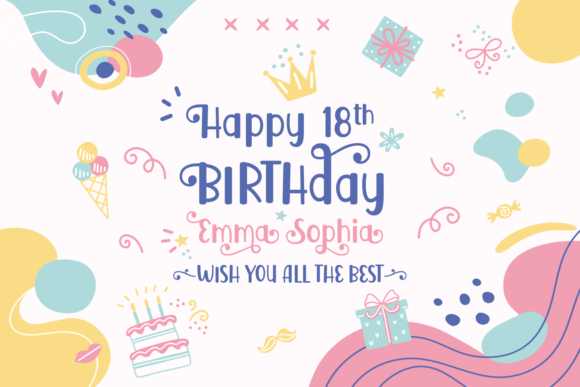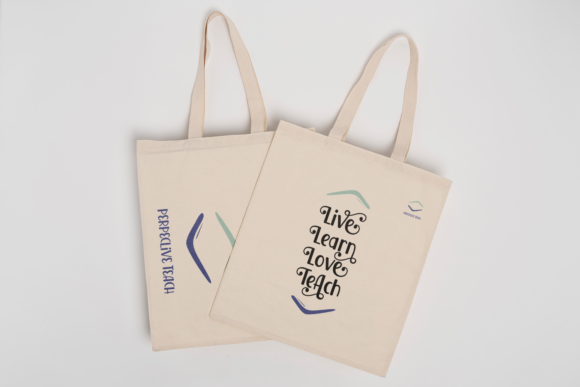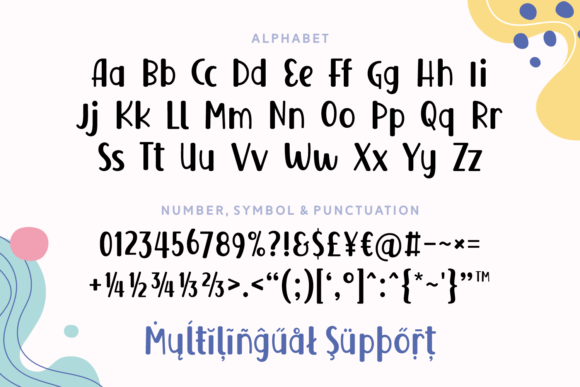
Affiline Font: Cute Handwritten Font for DIY Crafts & Birthday Designs
About the Affiline Font
Step up your design game with Affiline Font, a font that exudes confidence and style. Affiline is a playful and easy-to-read handwritten font. It works great for projects related to children, storybooks, birthday invitations, branding, or any creative project that needs youthful and authentic typography.
Affiline’s playful energy makes it ideal for headlines, short text blocks on packaging, and branding projects targeting a young audience or emphasizing a fun, approachable feel. It excels in children’s book illustrations, invitations, and social media graphics. However, its informal nature makes it less suitable for body copy, long paragraphs, or applications requiring high readability at small sizes, such as UI elements.
Pairing Affiline with a clean sans-serif like Montserrat for body text creates a balanced and visually appealing combination. For a more sophisticated look, consider pairing it with a delicate serif font like Playfair Display for headings alongside the playful Affiline. Alternatively, a geometric sans-serif such as Futura can offer a modern contrast, enhancing Affiline’s youthful charm.
Its overall personality is best described as friendly, approachable, and energetic, making it a strong choice for brands focused on youthfulness, creativity, and lightheartedness.